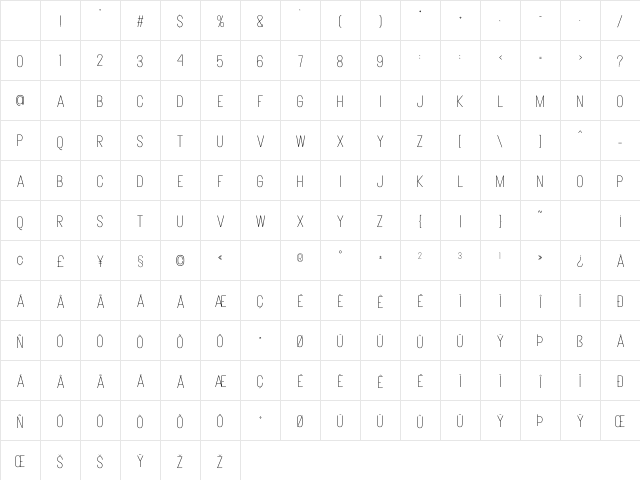
Votrag is a composed and adaptable typeface that performs quietly and consistently across a wide range of design contexts. Its slender proportions lend an understated elegance to any composition.